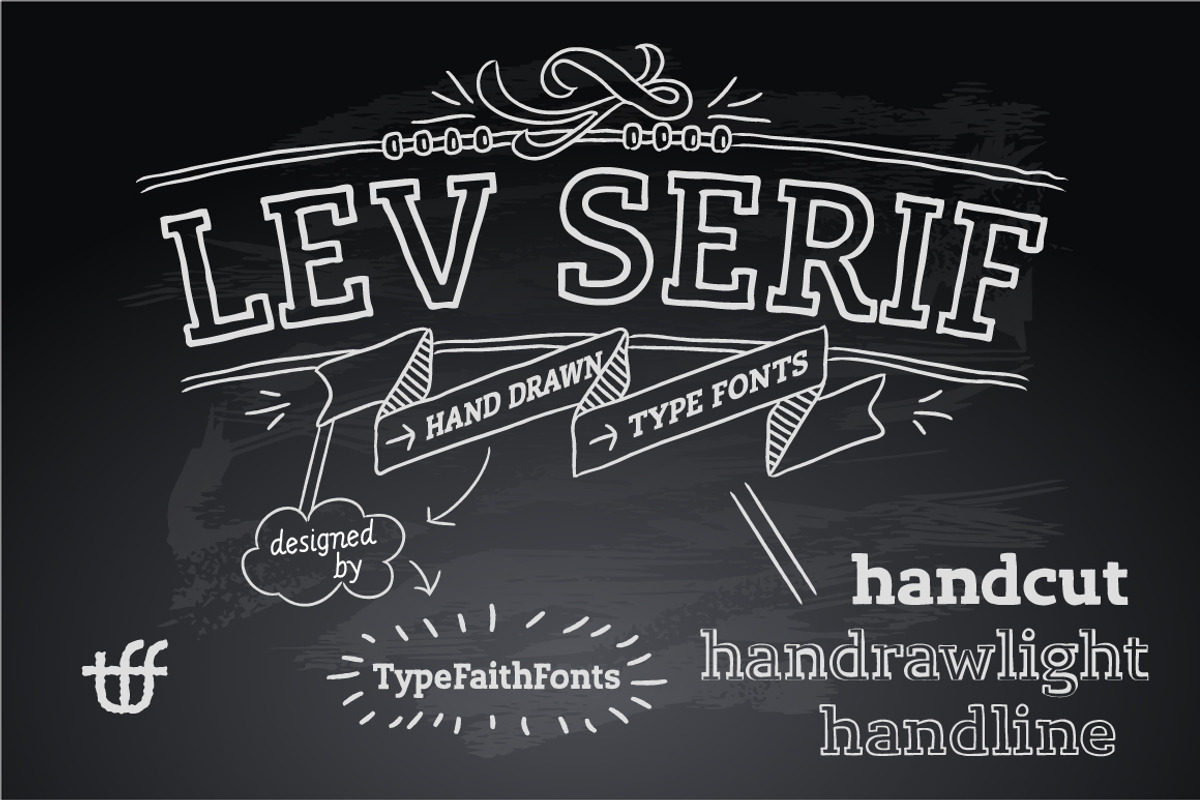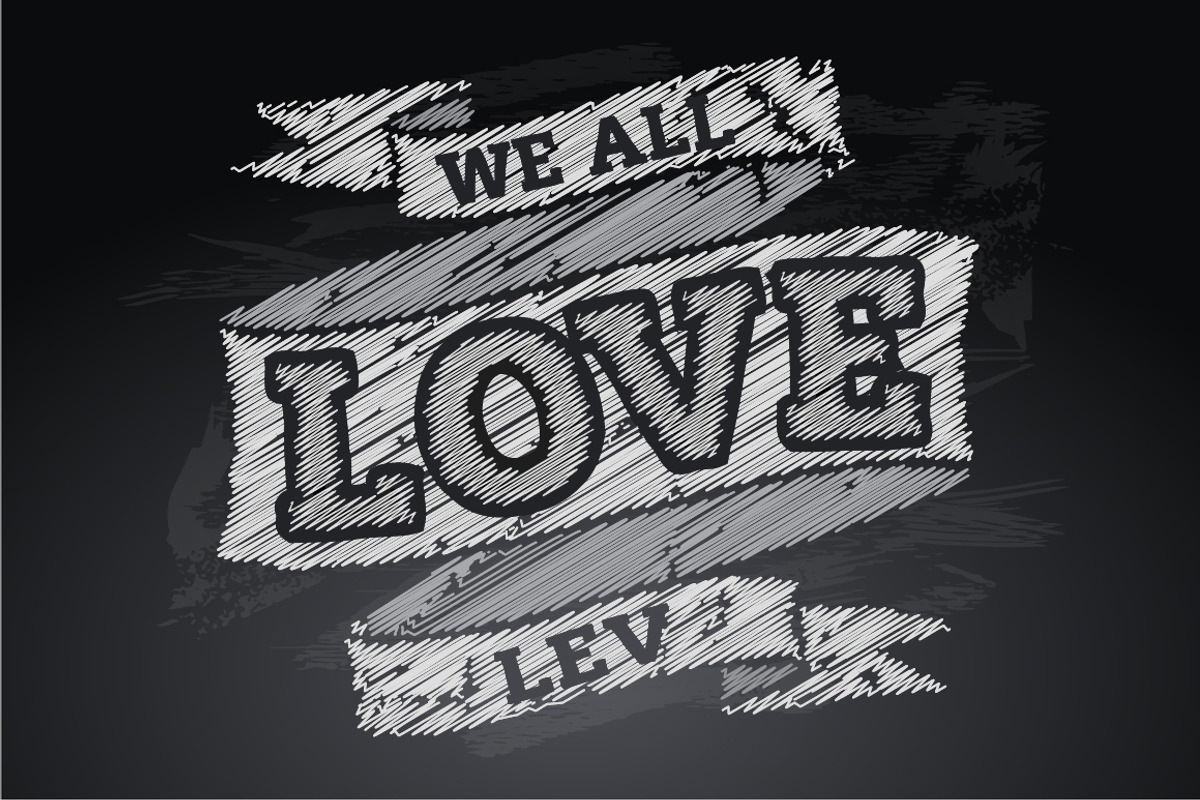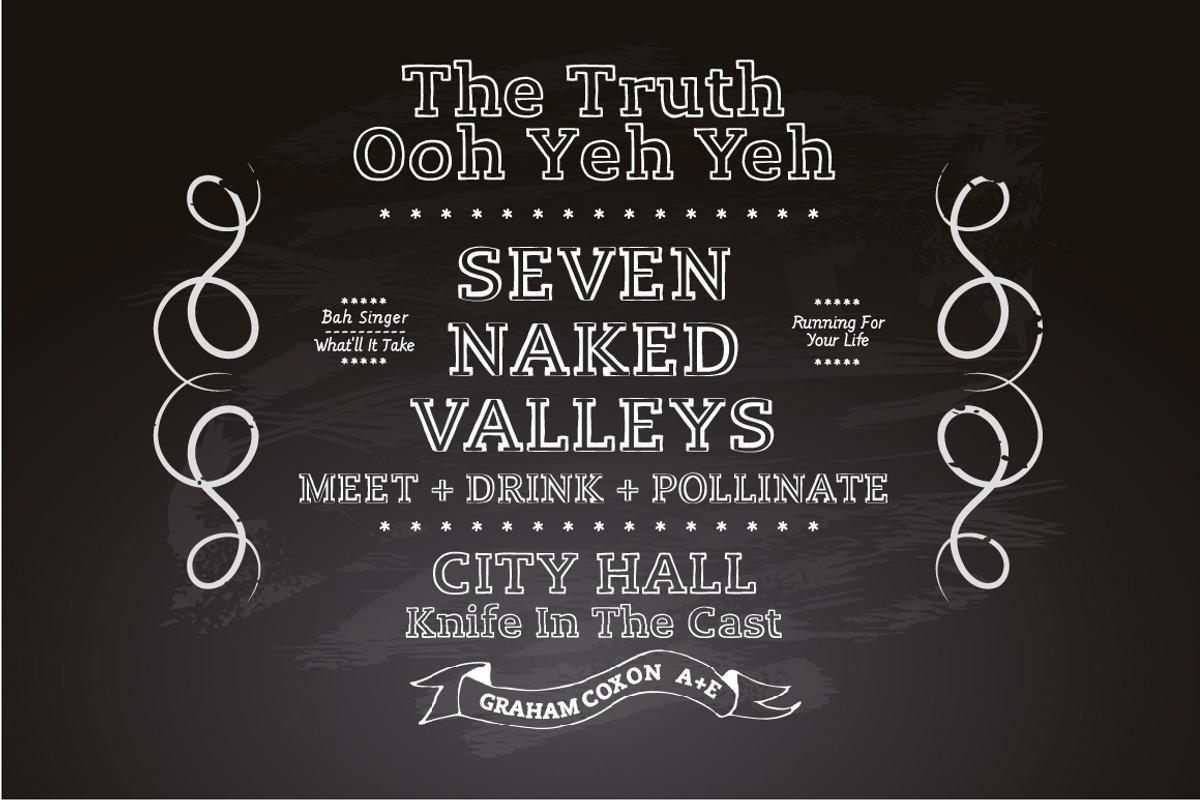
Lev Serif Handdrawn
Lev Serif Handdrawn by TypeFaith Fonts is a font selected for branding, posters, packaging, typography.
Why Lev Serif Handdrawn is worth a look
Lev Serif Handdrawn by TypeFaith Fonts fits naturally into Branding, posters, packaging, typography.